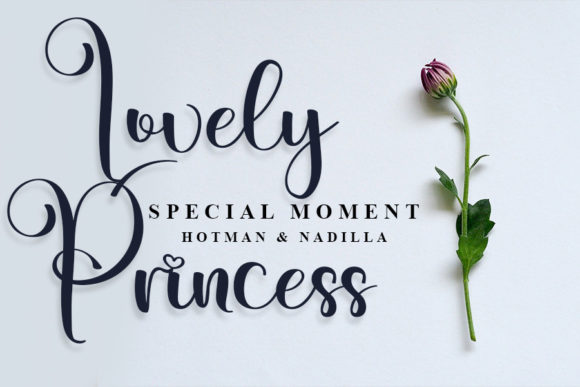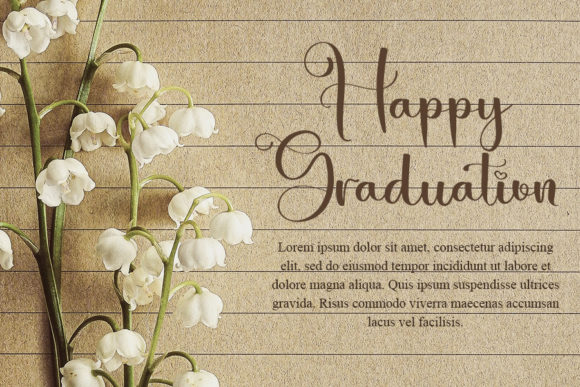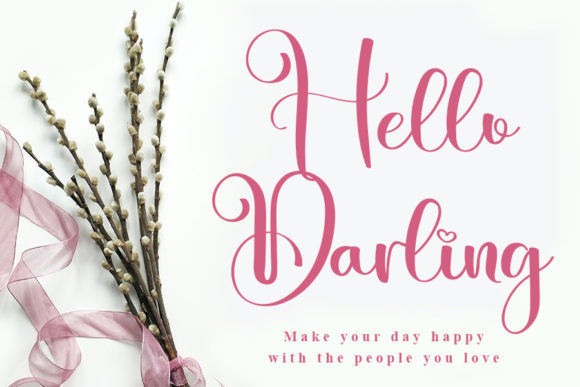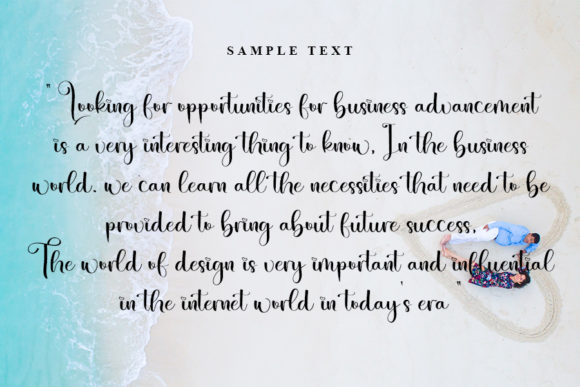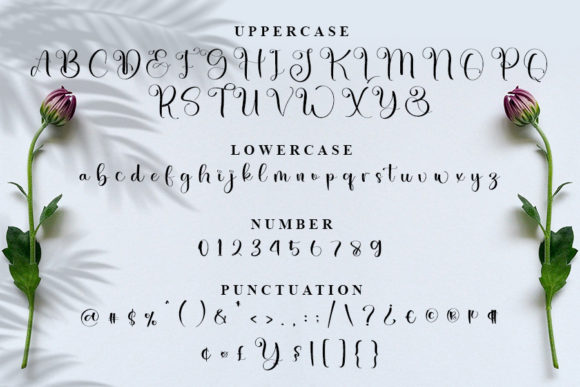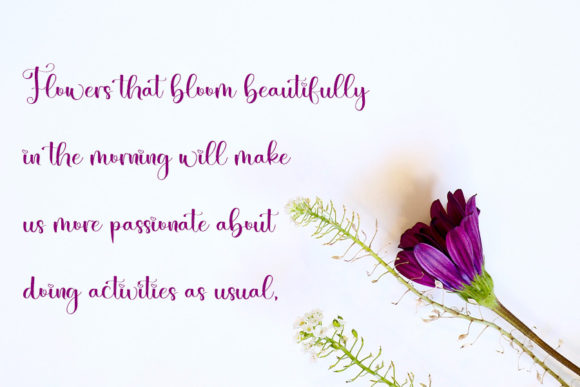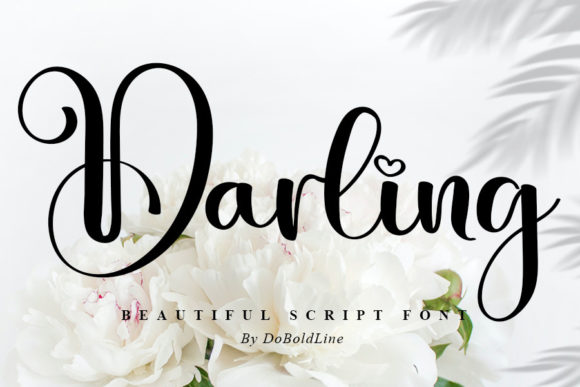
Introducing Darling Font: Elevate Your Designs with Timeless Elegance
In the world of typography, a font can make or break the aesthetic of a design project. For those seeking a touch of sophistication and elegance, the Darling Font is an exquisite choice. This stylish handwritten font, with its contemporary atmosphere and impeccable form, is inspired by timeless classic calligraphy. Whether you’re a designer, crafter, or simply a typography enthusiast, Darling Font is poised to enhance the beauty of your projects.
The Inspiration Behind Darling Font
Darling Font draws its inspiration from the classic calligraphy of the past, reimagined with a modern twist. The result is a font that exudes both elegance and approachability. Its balanced and varied characters make it perfect for a wide range of applications, from luxury branding and wedding stationery to packaging and digital media.
Key Features of Darling Font
- Contemporary yet Classic: Darling Font strikes the perfect balance between modern style and timeless elegance, making it versatile for various design needs.
- Handwritten with Precision: Each letter is crafted with precision, offering a personal touch that is hard to replicate with standard fonts.
- Balanced and Varied: The font features a range of weights and styles, ensuring that your designs can be both nuanced and impactful.
- Impeccable Form: With a focus on readability and aesthetics, Darling Font ensures that your message is conveyed with style and clarity.
Applications of Darling Font
The versatility of Darling Font makes it suitable for a myriad of design projects. Here are a few ideas to get you started:
- Branding and Logotypes: Create a lasting impression with a custom logo that embodies sophistication and elegance.
- Wedding and Event Stationery: Add a personal touch to your wedding invitations, menus, and programs with Darling Font’s unique charm.
- Packaging Design: Stand out on the shelves with product packaging that combines modern style with classic appeal.
- Digital Media: Enhance your website, social media posts, or digital advertisements with a font that speaks to a wide audience.
Why Choose Darling Font?
In a sea of generic fonts, Darling Font stands out for its distinctive character and high level of craftsmanship. Here are a few reasons why designers and crafters are gravitating towards this beautiful font:
- Unique Aesthetic: Darling Font offers a fresh alternative to traditional fonts, allowing your designs to stand out.
- Time-Saving: With its comprehensive set of characters and styles, you can complete your projects efficiently without compromising on quality.
- Support for Creative Projects: Whether you’re working on a commercial project or a personal craft, Darling Font is designed to bring your creative vision to life.
Darling Font is more than just a typeface; it’s a design statement. With its roots in classic calligraphy and its eye towards modern design, it offers the best of both worlds. Whether you’re looking to add a touch of elegance to your branding, create memorable packaging, or simply explore new typography options, Darling Font is an excellent choice. Its balanced and varied nature, coupled with its impeccable form, ensures that your projects will not only look stunning but also convey your message with clarity and style.
So why settle for ordinary when you can make your designs extraordinary with Darling Font? Dive into the world of sophisticated typography and let Darling Font be the key to unlocking your creative potential.